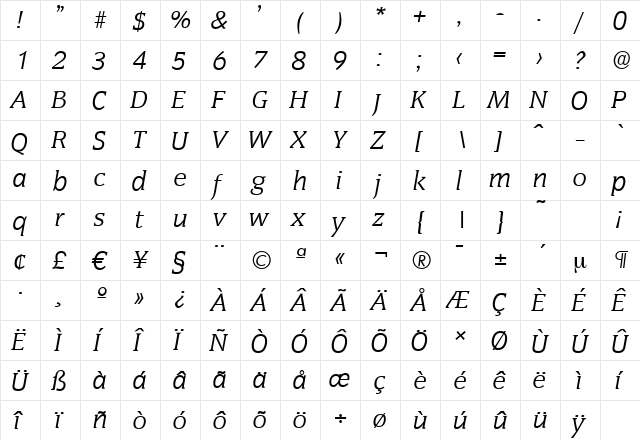
CongressSerial Italic
Design Context for CongressSerial Typeface
CongressSerial is a composed and adaptable typeface that performs quietly and consistently across a wide range of design contexts. Its italic angle brings a sense of urgency and motion to the letterforms.
Pro Tip: Try CongressSerial for annotation and caption copy alongside an upright companion — the contrast in angle creates a dynamic but ordered typographic system.